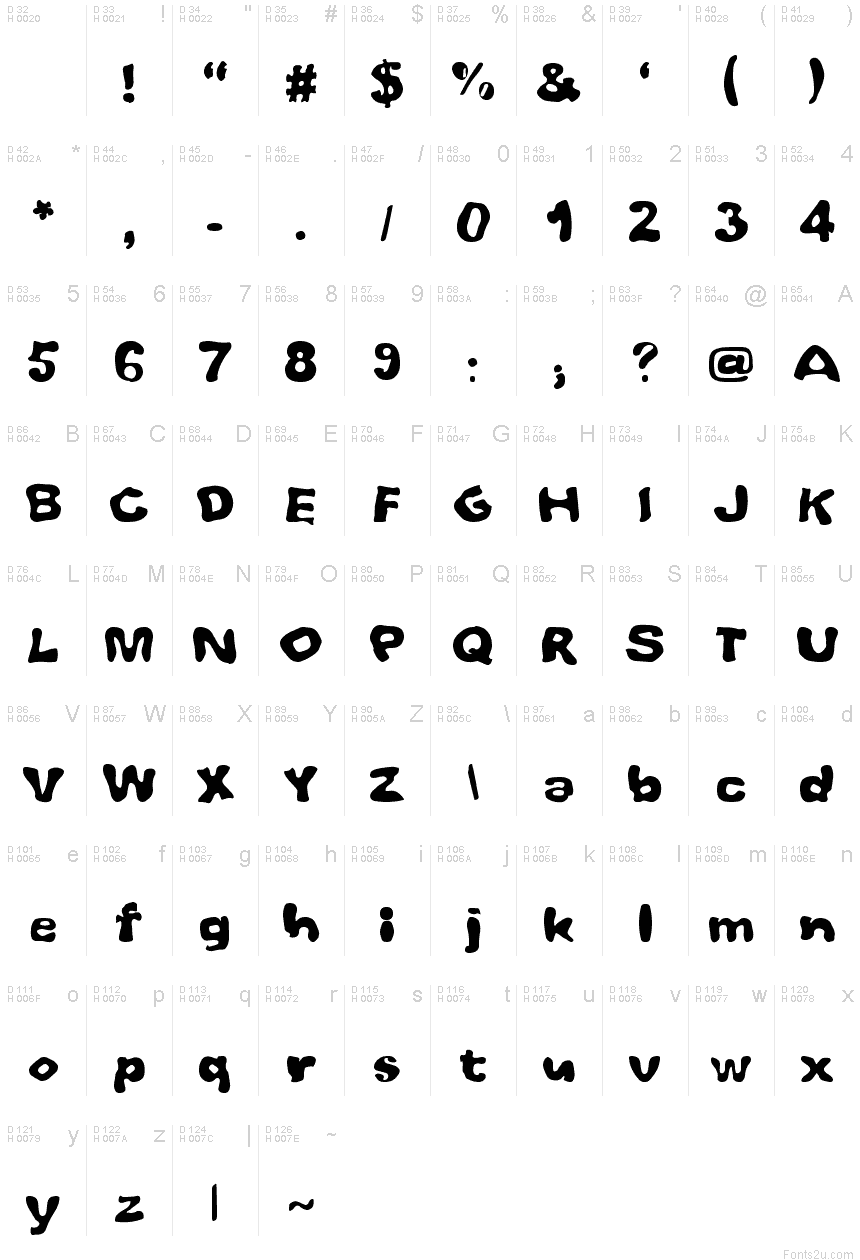
Whoobub
Whoobub by Uddi Uddi is a free cartoon bubble display font with a soft, blobby bounce. The letters look swollen and hand-shaped, with thick rounded forms, uneven curves, and little droplet-like nubs that make the whole font feel goofy, rubbery, and a bit creature-like.
It works well anywhere the lettering needs to feel playful and oversized - on kids' party flyers, snack packaging, comic-style headings, streamer graphics, or casual title cards. As a free font, it also suits short logos, sticker text, and cover lines where those puffy, wobbling shapes can carry the mood on their own.